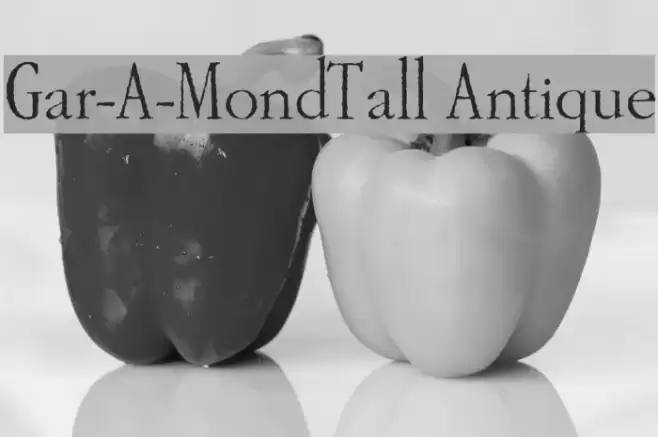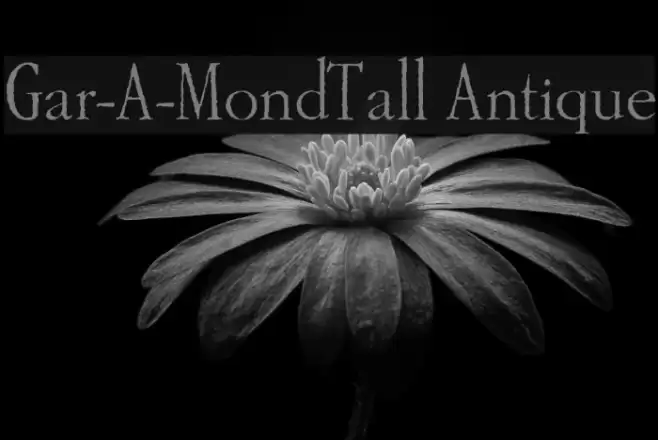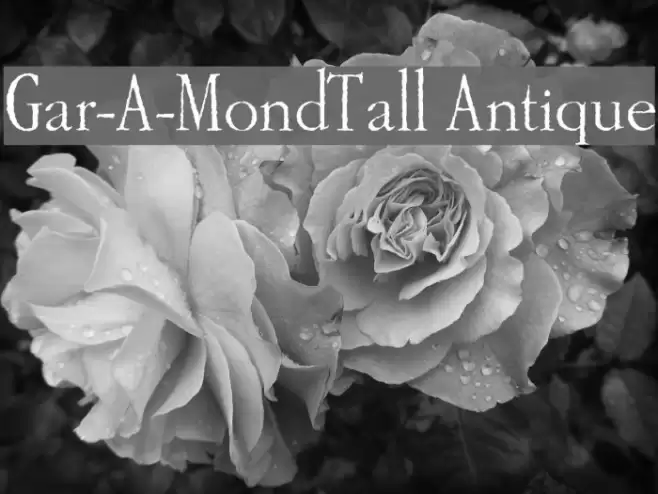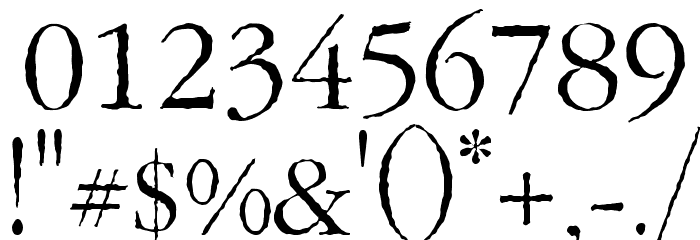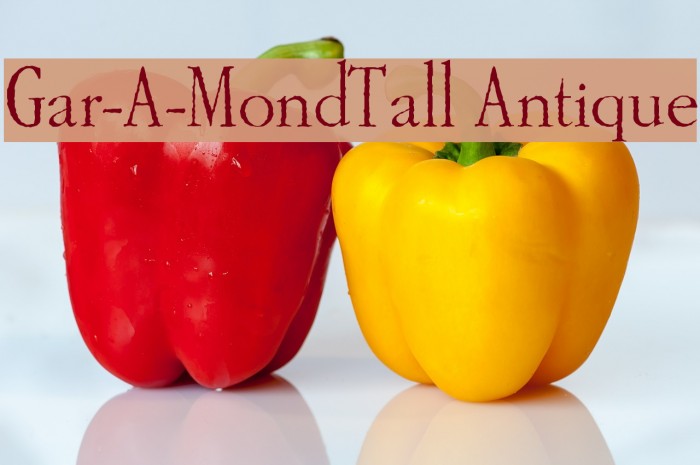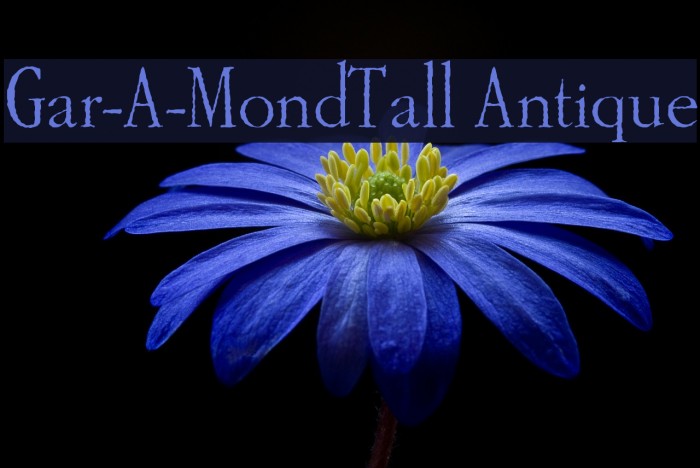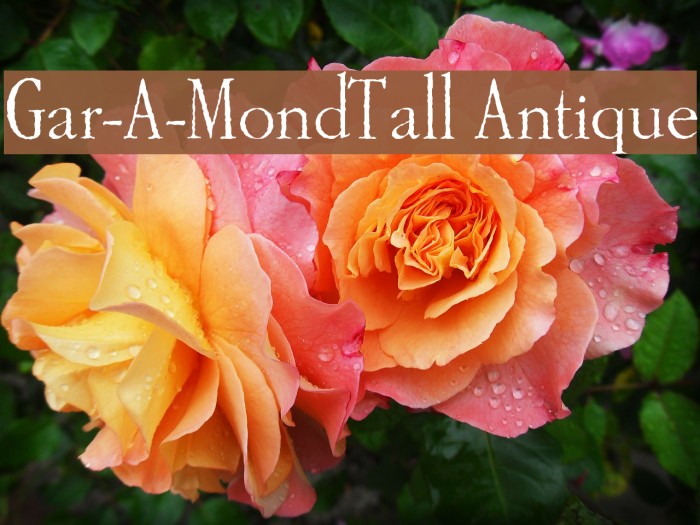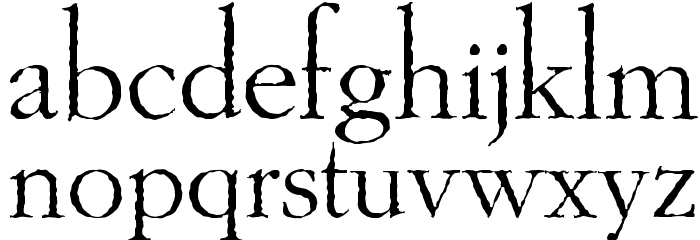
Gar-A-MondTall Antique Font
Gar-A-MondTall Antique Description
This font features a classic and elegant serif design with a slightly elongated form, giving it a tall and antique appearance. The strokes are uneven, adding a hand-drawn quality that enhances its vintage charm. The uppercase letters are bold and commanding, while the lowercase letters maintain a consistent style with a touch of sophistication. The numerals are distinct and clear, making them easily readable. Special characters are well-integrated, maintaining the overall aesthetic. This font's unique style makes it suitable for projects that require a historical or artistic touch.
A tall, antique serif font with a hand-drawn, vintage style from Uncategorized fonts.
- Proposed Projects: Ideal for historical publications, artistic projects, invitations, and branding that requires a classic touch.
- Overall Style: Vintage
- Use Case: Headlines, Logos, Artistic projects